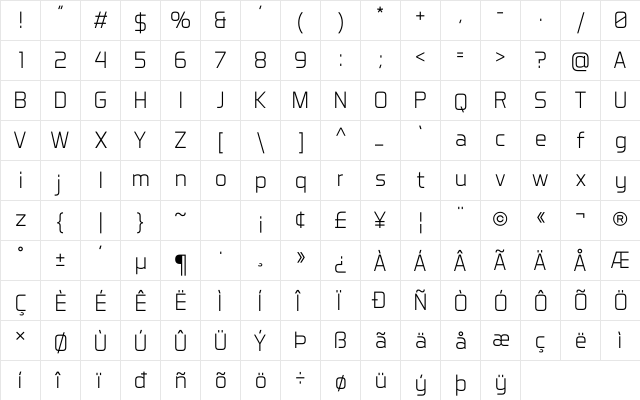
Aero Matics Light Regular
Design Context for Aero Matics Light Typeface
Aero Matics Light offers clean, dependable letterforms without strong stylistic allegiance, making it a practical choice for designers who need flexibility. Its slender proportions lend an understated elegance to any composition.
Pro Tip: Pair Aero Matics Light with a font of contrasting weight or personality to build a more expressive typographic hierarchy.